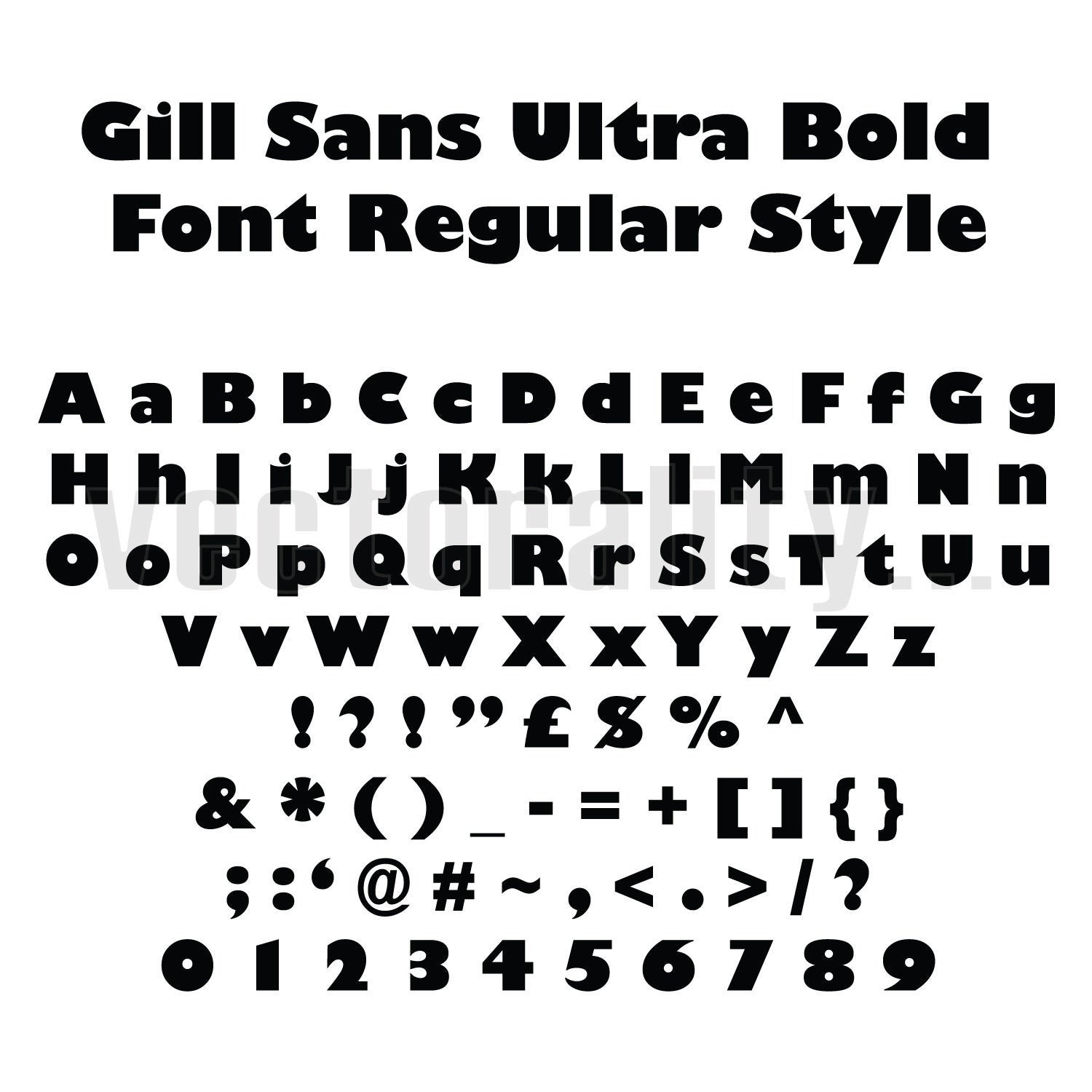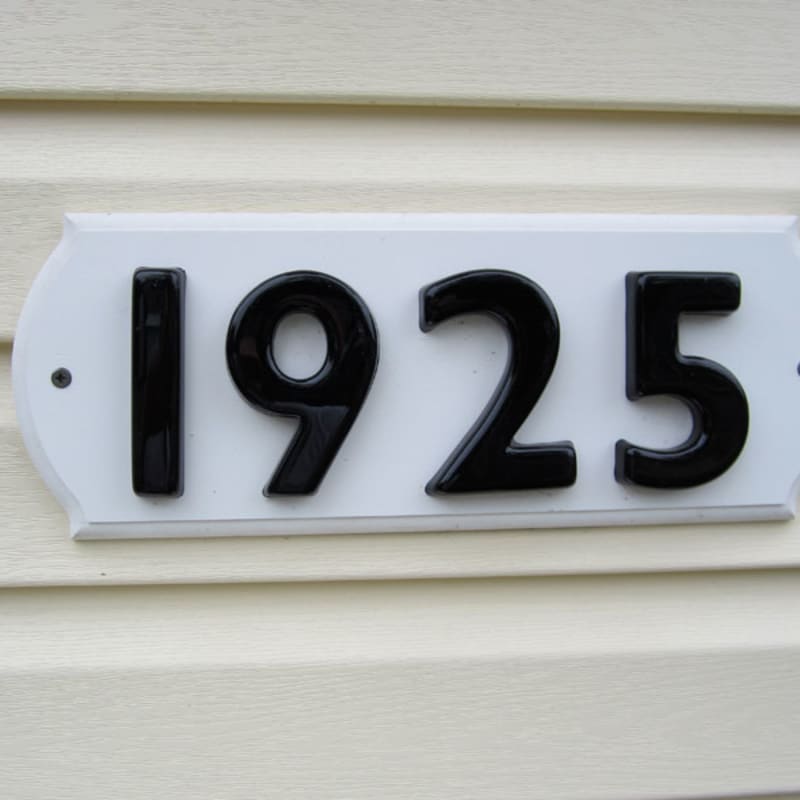
Gil Sans Font
Gil Sans Font - Moreover, you can embed it to. Gill sans is a humanist sans serif with some geometric touches in its structures. Gill sans is the famous set of humanist sans serif fonts originally designed by eric gill and the monotype type drawing office,. It also has a distinctly british feel.
Moreover, you can embed it to. It also has a distinctly british feel. Gill sans is a humanist sans serif with some geometric touches in its structures. Gill sans is the famous set of humanist sans serif fonts originally designed by eric gill and the monotype type drawing office,.
Gill sans is the famous set of humanist sans serif fonts originally designed by eric gill and the monotype type drawing office,. Moreover, you can embed it to. Gill sans is a humanist sans serif with some geometric touches in its structures. It also has a distinctly british feel.
It also has a distinctly british feel. Moreover, you can embed it to. Gill sans is the famous set of humanist sans serif fonts originally designed by eric gill and the monotype type drawing office,. Gill sans is a humanist sans serif with some geometric touches in its structures.
Gill sans is a humanist sans serif with some geometric touches in its structures. Moreover, you can embed it to. It also has a distinctly british feel. Gill sans is the famous set of humanist sans serif fonts originally designed by eric gill and the monotype type drawing office,.
It also has a distinctly british feel. Gill sans is the famous set of humanist sans serif fonts originally designed by eric gill and the monotype type drawing office,. Moreover, you can embed it to. Gill sans is a humanist sans serif with some geometric touches in its structures.
Gill sans is the famous set of humanist sans serif fonts originally designed by eric gill and the monotype type drawing office,. Gill sans is a humanist sans serif with some geometric touches in its structures. It also has a distinctly british feel. Moreover, you can embed it to.
It also has a distinctly british feel. Gill sans is the famous set of humanist sans serif fonts originally designed by eric gill and the monotype type drawing office,. Gill sans is a humanist sans serif with some geometric touches in its structures. Moreover, you can embed it to.
Moreover, you can embed it to. It also has a distinctly british feel. Gill sans is a humanist sans serif with some geometric touches in its structures. Gill sans is the famous set of humanist sans serif fonts originally designed by eric gill and the monotype type drawing office,.
Moreover, you can embed it to. Gill sans is a humanist sans serif with some geometric touches in its structures. It also has a distinctly british feel. Gill sans is the famous set of humanist sans serif fonts originally designed by eric gill and the monotype type drawing office,.
Gill sans is the famous set of humanist sans serif fonts originally designed by eric gill and the monotype type drawing office,. It also has a distinctly british feel. Moreover, you can embed it to. Gill sans is a humanist sans serif with some geometric touches in its structures.
Gill sans is a humanist sans serif with some geometric touches in its structures. Moreover, you can embed it to. Gill sans is the famous set of humanist sans serif fonts originally designed by eric gill and the monotype type drawing office,. It also has a distinctly british feel.
It also has a distinctly british feel. Gill sans is a humanist sans serif with some geometric touches in its structures. Moreover, you can embed it to. Gill sans is the famous set of humanist sans serif fonts originally designed by eric gill and the monotype type drawing office,.
Gill Sans Is The Famous Set Of Humanist Sans Serif Fonts Originally Designed By Eric Gill And The Monotype Type Drawing Office,.
It also has a distinctly british feel. Gill sans is a humanist sans serif with some geometric touches in its structures. Moreover, you can embed it to.